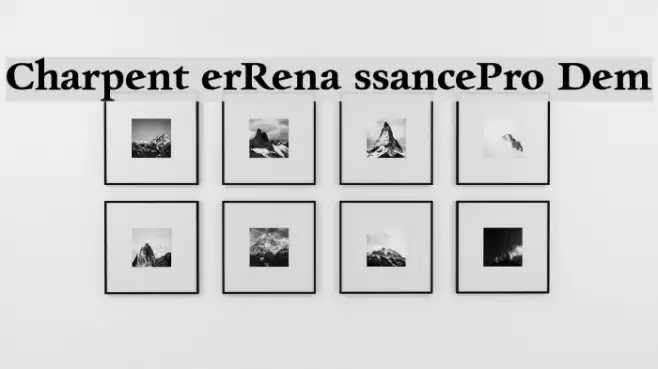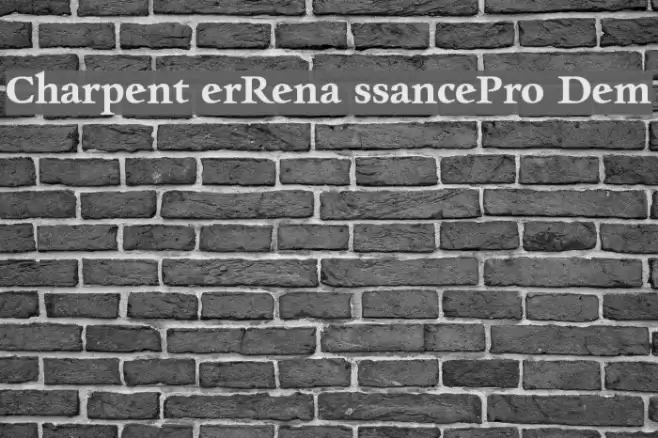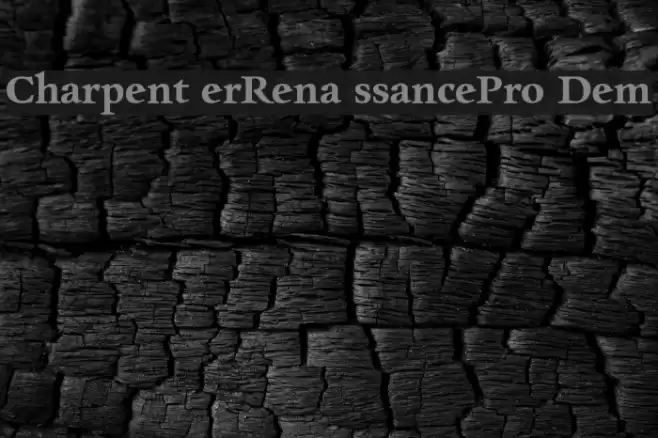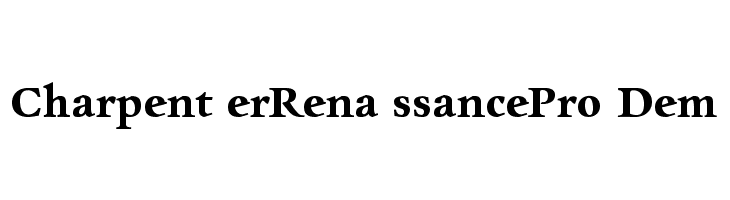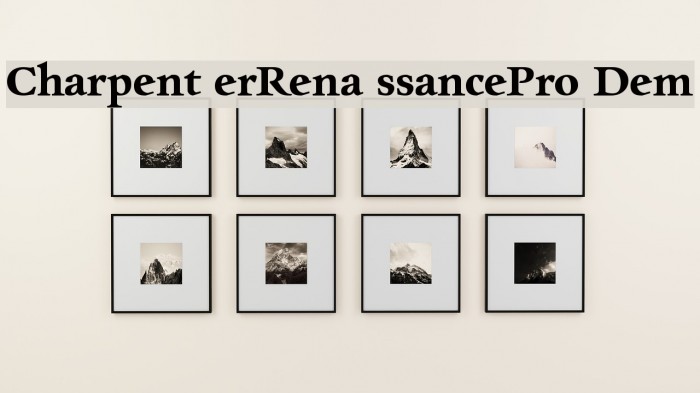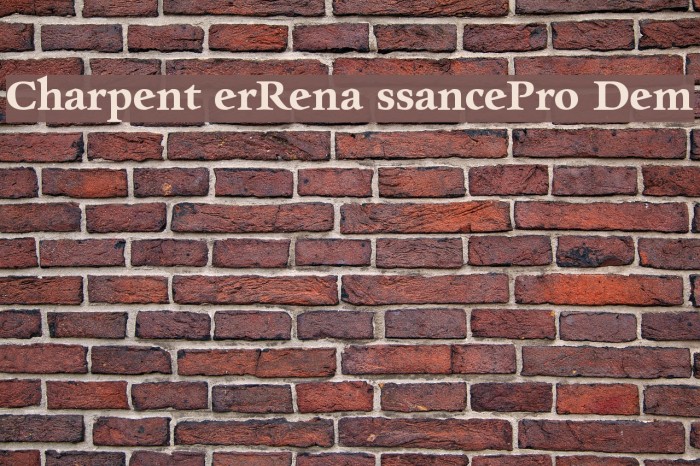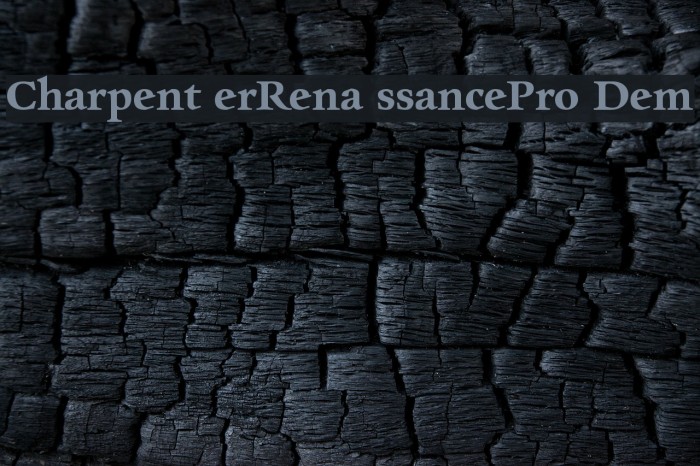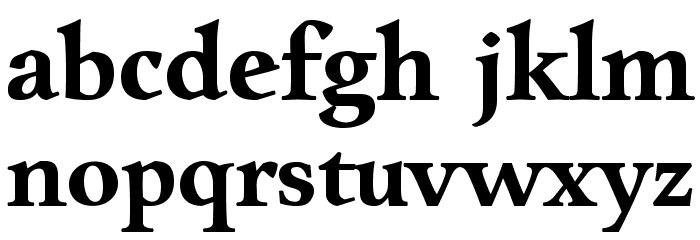
CharpentierRenaissancePro-Demi Font
CharpentierRenaissancePro-Demi Description
This font exudes a classic and elegant style, reminiscent of Renaissance typography. It features strong, bold serifs with a slightly condensed structure, giving it a robust and authoritative presence. The uppercase letters are stately and well-proportioned, while the lowercase letters maintain a harmonious balance with a touch of traditional flair. The numerals are clear and consistent, complementing the overall design. The special characters are thoughtfully crafted, maintaining the font's cohesive aesthetic. This typeface is ideal for projects that require a sophisticated and timeless look.
A classic serif font with bold, elegant strokes and a Renaissance-inspired design from Uncategorized fonts.
- Proposed Projects: Ideal for book covers, historical documents, formal invitations, and branding that requires a touch of elegance.
- Overall Style: Classic
- Use Case: Headlines, Logos, Formal documents